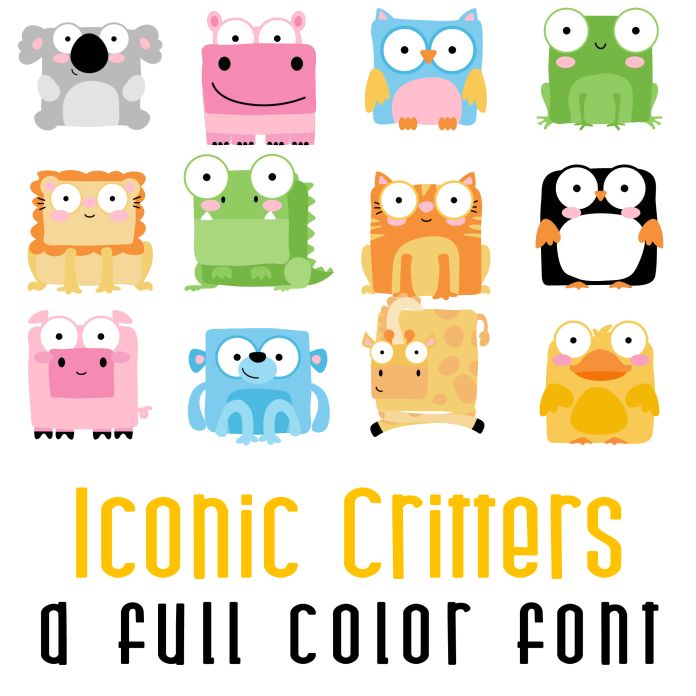
This fun full color font features 26 fun critters! Perfect for cards, crafts, parties, gifts, decor, planner stickers, classrooms, scrapbook pages and more!